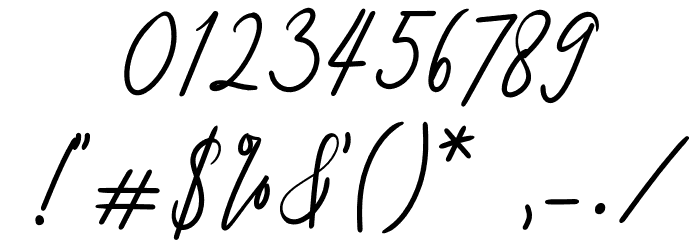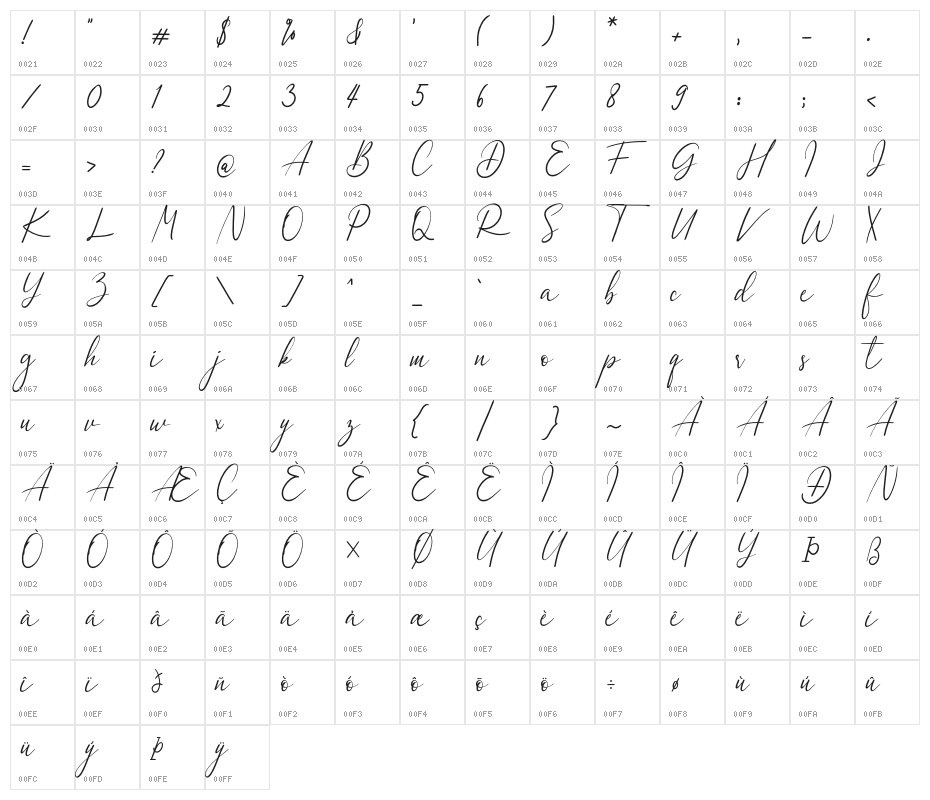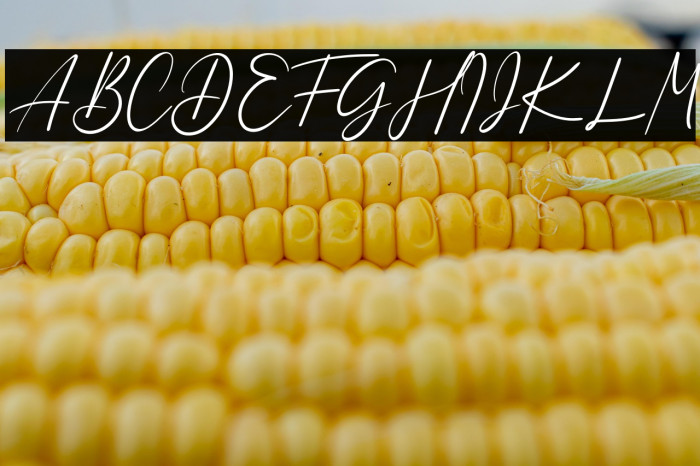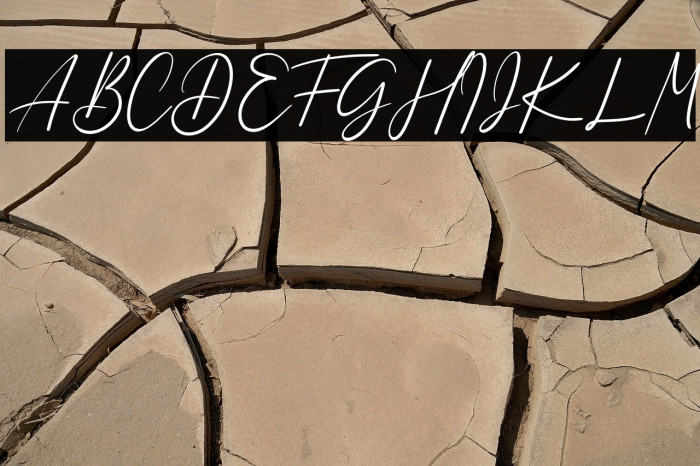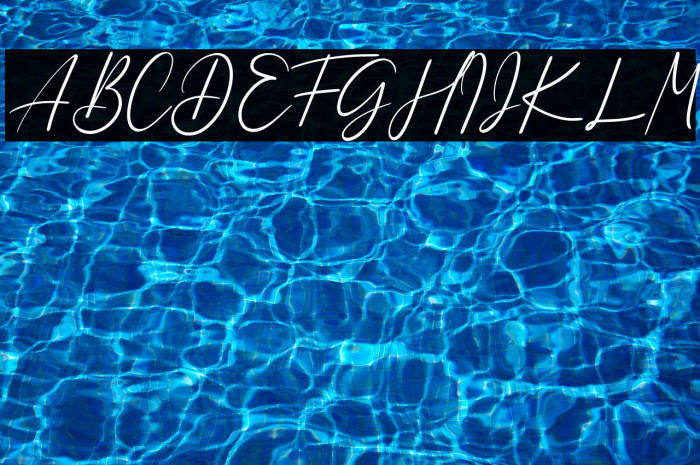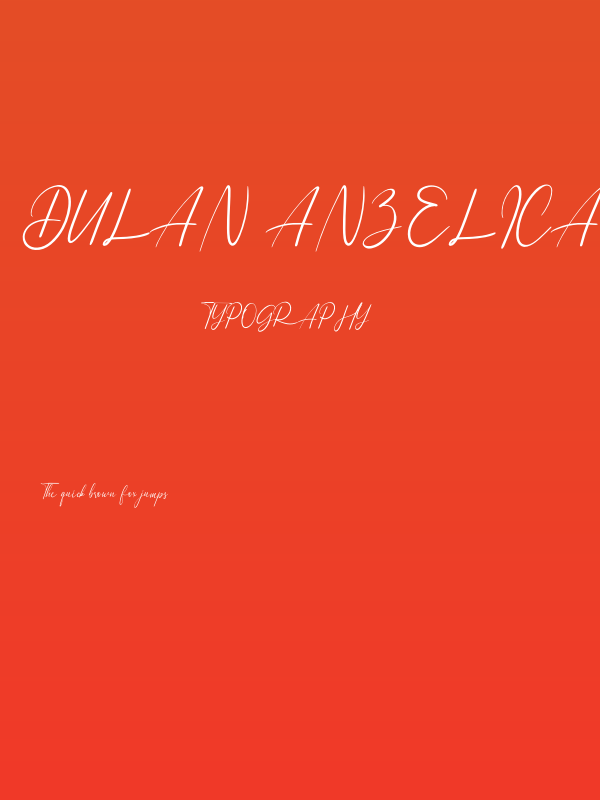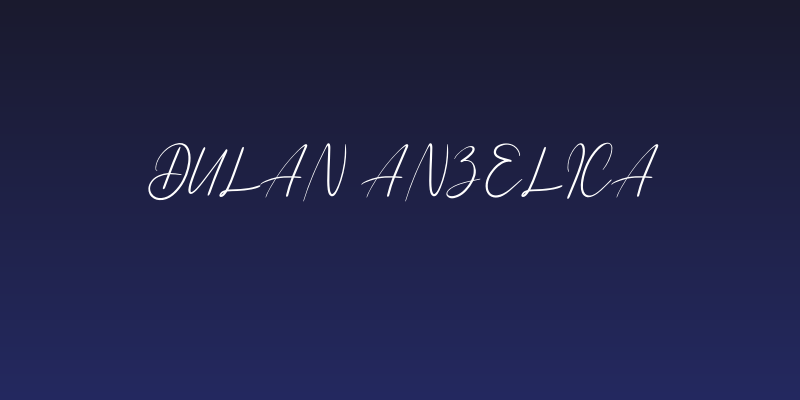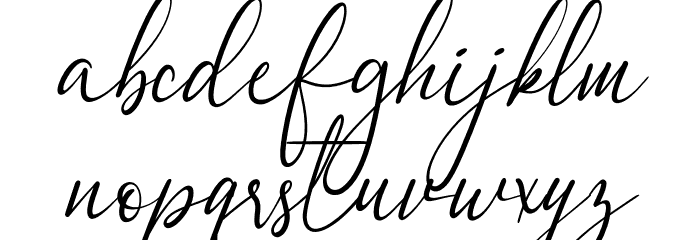
Dulan Anzelica Font
Dulan Anzelica Description
This font features an elegant and flowing script style, characterized by its smooth, cursive letterforms. The uppercase letters are tall and graceful, with sweeping lines and delicate curves that give a sense of fluidity and movement. The lowercase letters maintain a consistent style, with loops and connections that enhance the script's cohesive appearance. Numbers and special characters are designed to match the overall aesthetic, providing a harmonious look across all elements. The font's thin strokes and high contrast between thick and thin lines add to its sophisticated and refined appearance, making it ideal for formal and decorative uses.
| Overall Style | Elegant, Decorative |
| Use Case | Invitations, Branding, Decorative Headlines |
| Proposed Projects | Ideal for wedding invitations, elegant branding, personal stationery, and decorative headlines. |